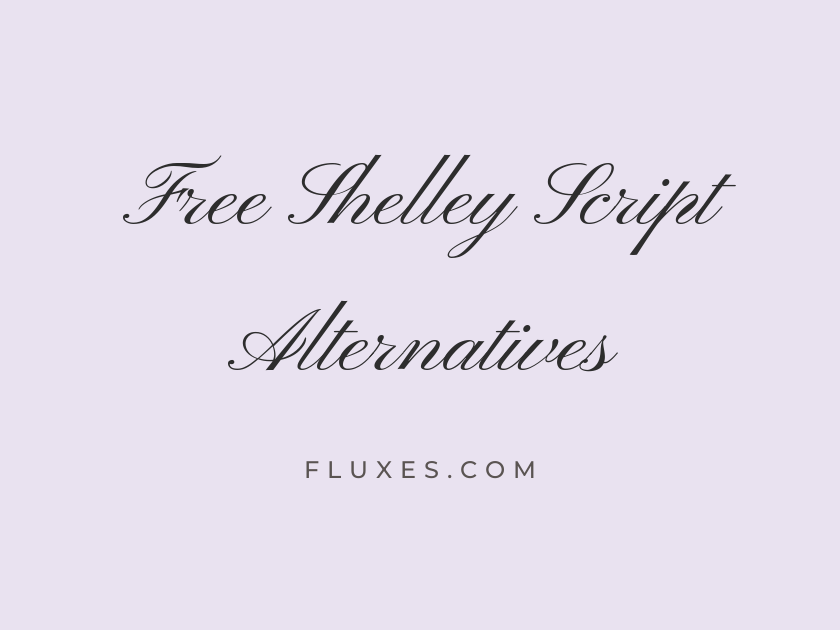
15 Best Free Fonts Alternatives to Shelley Script
Shelley Script has long been a favorite for formal invitations and certificates, prized for its elaborate capitals and old-world calligraphic flourish. Because it’s a licensed typeface rather than a free download, designers searching for free alternatives to Shelley Script often want that same sense of engraved elegance, ideal for wedding stationery, formal announcements, and luxury branding, without the licensing fee. Google Fonts has a strong bench of formal script fonts that echo that copperplate spirit, each with its own personality and level of ornamentation.
1. Pinyon Script
Together in marriage, with love and honor
Pinyon Script is probably the closest match in spirit to Shelley Script’s Allegro cut: tall ascenders, sweeping capitals, and a rhythm built for formal wording rather than casual notes. It reads beautifully at display sizes on invitations and place cards, though its thin hairlines mean it should never be set too small or in a light color on a busy background.
2. Alex Brush
Warmly invite you to celebrate our wedding
Alex Brush leans slightly more casual than a true copperplate script, with a fluid, brush-like connection between letters that feels handwritten rather than engraved. It pairs nicely with a restrained serif for body copy, giving a monogram or header just enough personality without tipping into novelty.
3. Allura
Requesting the pleasure of your company
Allura splits the difference between formal and romantic, with looping ascenders and a light touch that suits save-the-dates and menu headers. It’s compact enough to use in mid-size headlines, a rarer trait among ornate scripts, which makes it a practical workhorse for stationery layouts.
4. Parisienne
Elegant script for your wedding day
Named for the city’s romantic reputation, Parisienne has rounder, softer letterforms than Shelley Script’s crisp copperplate style. It suits soft, garden-party wedding themes better than strictly formal black-tie invitations, and it holds up well in pastel or metallic foil treatments.
5. Tangerine
Forever yours, from this day forward
Tangerine is delicate almost to a fault at regular weight, so the bold cut earns its place here: it keeps the fine, old-fashioned calligraphy feel while staying legible on printed cards. Designers recreating a vintage engraved-invitation look often reach for Tangerine specifically because of its narrow proportions and understated elegance.
6. Italianno
An evening of celebration and fine dining
Italianno is all long, unbroken swashes, closer to a monoline flourish font than a traditional broad-nib script. It works best as a single accent word, a couple’s initials, or a short headline rather than full sentences, since the connected strokes can blur into each other at length.
7. Mrs Saint Delafield
With love, we welcome you to our wedding
There’s a looseness to Mrs Saint Delafield that feels closer to a fountain-pen signature than a formal engraving, which makes it a good pick when a project wants warmth alongside elegance. It’s particularly effective for signing off a formal letter or closing line, mimicking an actual handwritten flourish at the end of a paragraph.
8. Meddon
You are cordially invited to attend
Meddon carries a gentler, more restrained slant than most formal scripts on this list, with letterforms that stay legible even in longer phrases. That readability makes it a dependable choice for anyone who needs a script font that won’t fight with the eye across a full invitation line.
9. Marck Script
Join us for an evening of elegance
Marck Script has a slightly upright posture compared to the classic slanted copperplate look, giving it a fresh, contemporary edge while still nodding to calligraphic tradition. It’s a solid option for branding projects, like a boutique or florist’s logotype, that want a script feel without leaning fully into bridal territory.
10. Herr Von Muellerhoff
Yours faithfully, with warmest regards
Herr Von Muellerhoff is dense with flourish, packed with loops and connecting strokes that recall an old-fashioned penmanship manual. It demands generous spacing and a large display size to breathe; crammed into a small caption, it turns muddy fast.
11. Rouge Script
Celebrate our anniversary in timeless style
Rouge Script trades some of Shelley Script’s stiffness for a livelier, more casual bounce, making it a good fit for greeting cards and party invitations that want charm over formality. Its open counters keep it readable at smaller sizes better than many scripts in this category.
12. Petit Formal Script
With deepest gratitude and sincere respect
True to its name, Petit Formal Script is compact, upright, and closely spaced, giving it an old ledger or diploma-like quality rather than a flowing bridal look. It’s an excellent choice for certificates, formal citations, or anywhere text needs to feel official rather than romantic.
13. WindSong
Two hearts, one beautiful beginning
WindSong feels lighter and more contemporary than a strict copperplate script, with airy connections that suit modern wedding branding or a stationery suite built around soft color palettes. It photographs well on foil-stamped or letterpress cards, where its fine strokes catch the light nicely.
• Styles: 2 weights (Regular, Medium)
14. Miss Fajardose
A toast to love, laughter, and forever
Miss Fajardose
Miss Fajardose brings heavy, decorative capitals and a distinctly Victorian flavor, making it a strong candidate for vintage-themed invitations or menu headers that want real drama. Its ornamentation is its selling point but also its limit, so it’s best reserved for short titles rather than full sentences.
15. Ballet
Congratulations on your engagement
Ballet
Ballet is a variable script font with genuinely fine, high-contrast strokes that recreate the look of pointed-pen calligraphy about as closely as anything free on Google Fonts gets. It suits luxury branding, fine stationery, and monograms where the calligraphic detail needs to hold up even in print.
Pairing and Setting Tips
Most of these scripts want a plain, quiet companion. A restrained serif like EB Garamond or Cormorant, or a simple sans like Josefin Sans, keeps the script the star.
Set script fonts large. Anything below roughly 24px on screen tends to lose the fine strokes that make these faces special.
Use generous letter spacing on surrounding text, and avoid setting scripts in all caps; the lowercase connections are where the calligraphic character lives.
Test on the actual paper or screen background you’ll use, since thin hairline strokes can disappear against dark or textured surfaces.
Any of these free Google Fonts options can stand in for Shelley Script without sacrificing the formal, calligraphic character that made it a stationery staple, and each brings its own shade of elegance to explore.